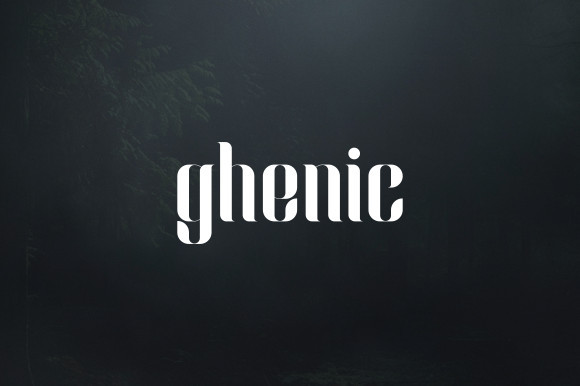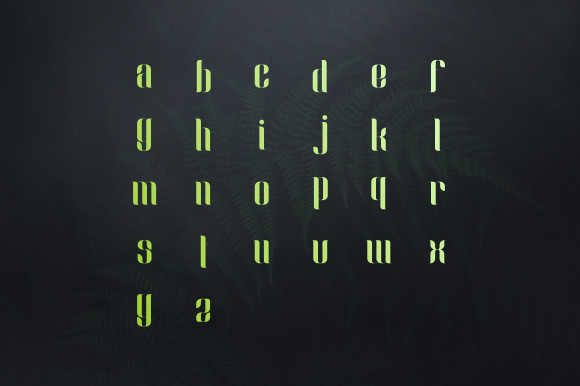
Ghenic Font
Ghenic is a classy display font. It has a modern look that makes it perfect for a wide variety of applications. Ghenic is the perfect font for making original and outstanding designs.